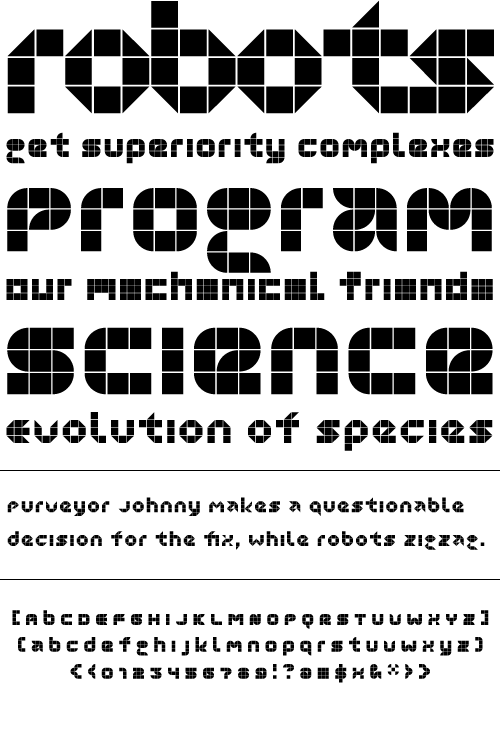
Amber
Amber is a minimal font which is built on a grid of 3x3 squares. It was an experiment to see if I could build legible glyphs out of such a small grid. The 3 weights can be layered over each other to create interesting designs.
Year Designed:
2000
Weights:
Angled, Round, Square